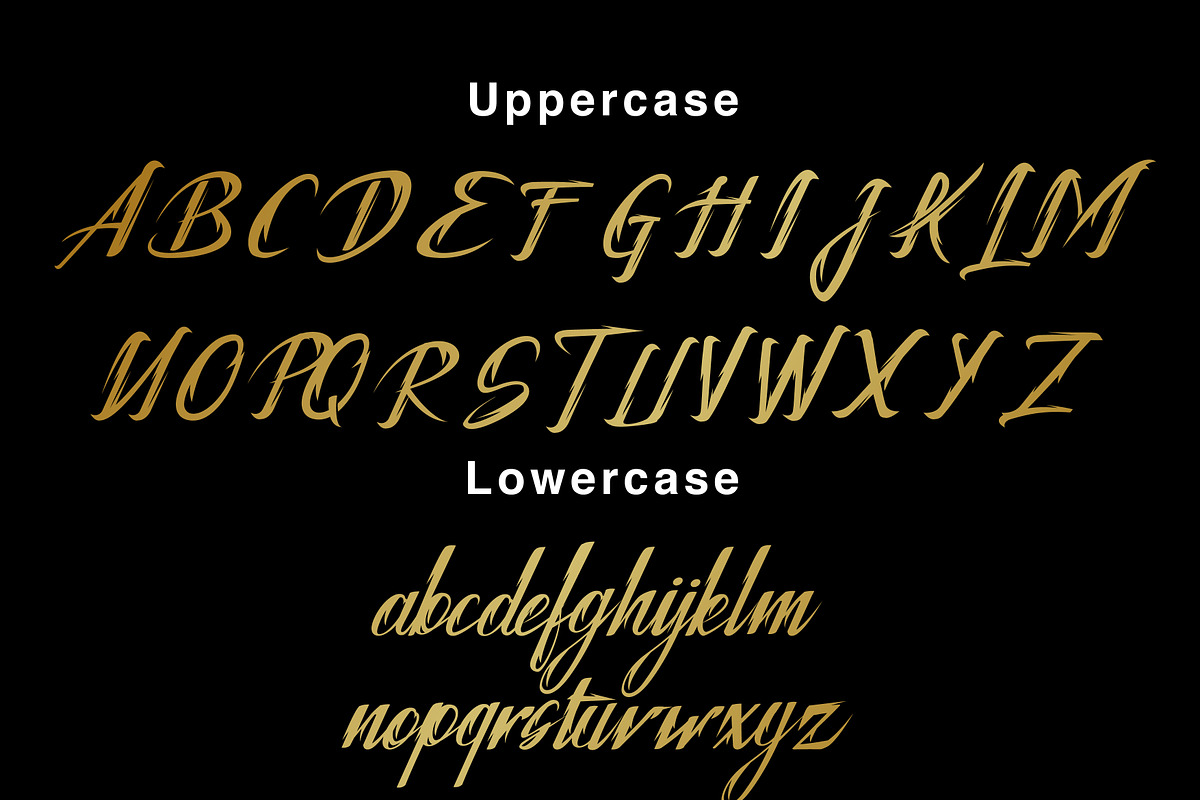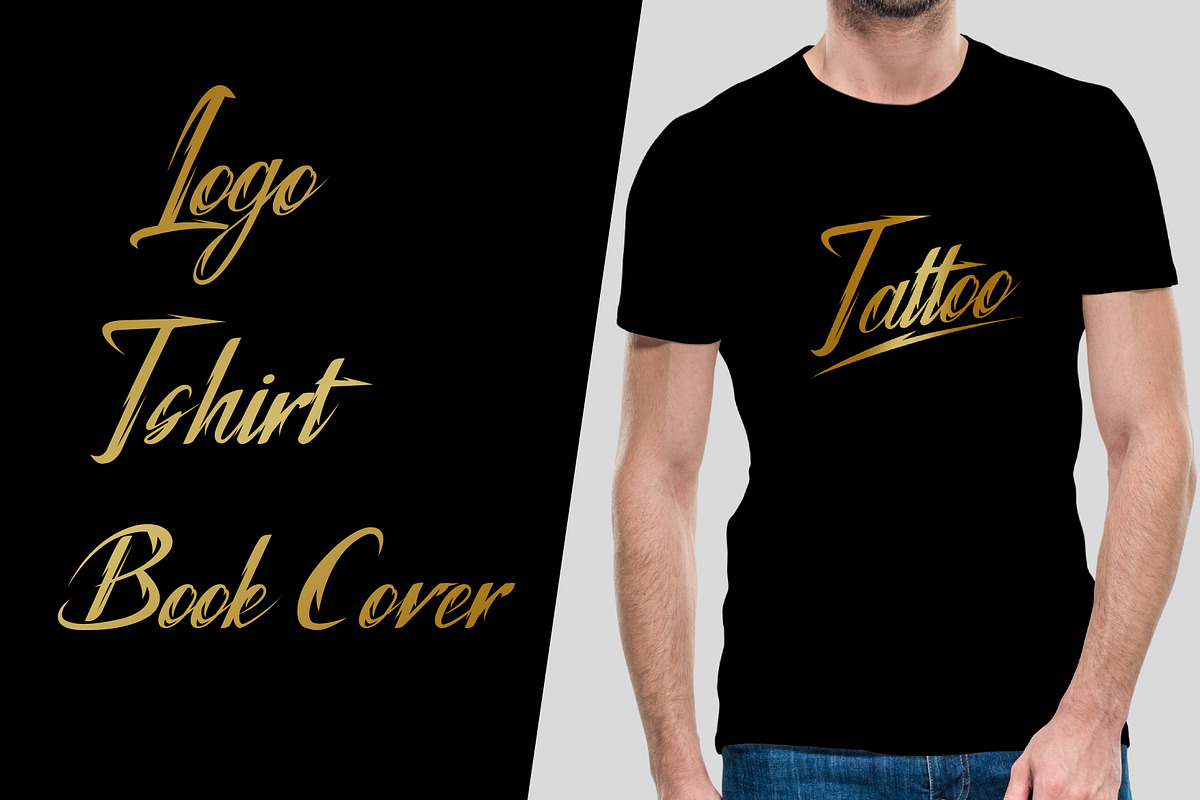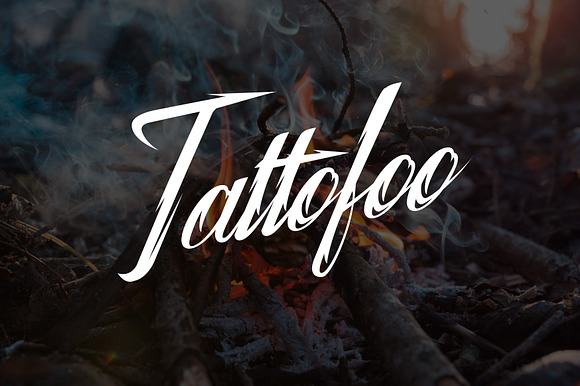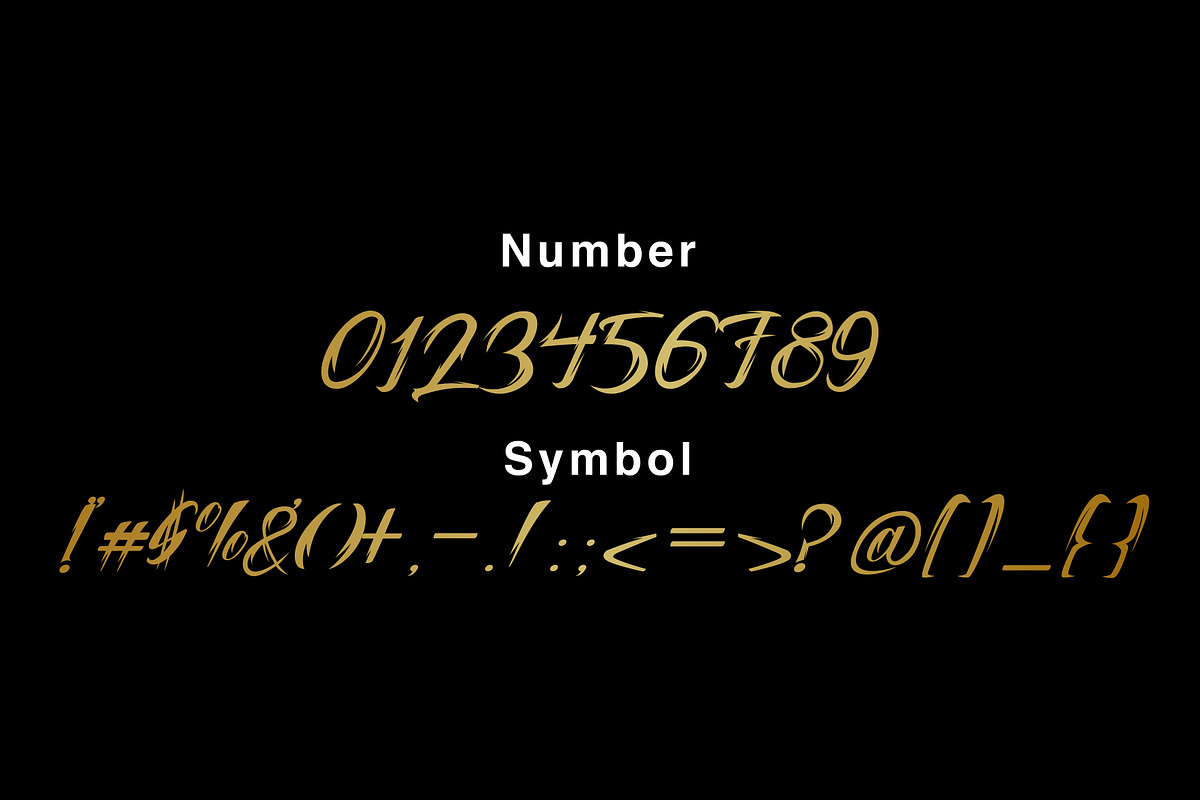
TATTOFOO ( awesome script font)
Tattofoo, is a script font that has visual integrity, which is inspired by the art of tattoos.
Why TATTOFOO ( awesome script font) is worth a look
TATTOFOO ( awesome script font) by HVF Studio fits naturally into Branding, posters, packaging, typography.